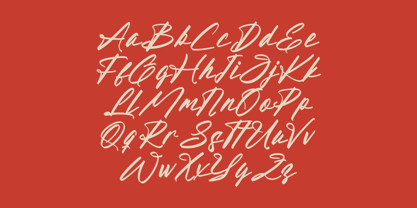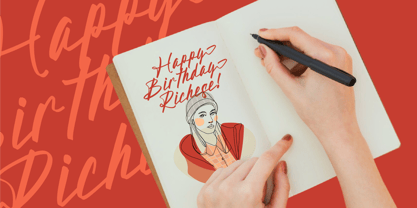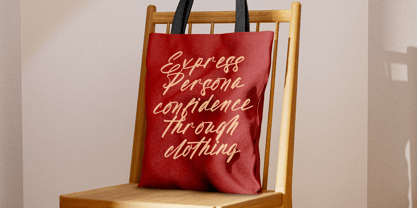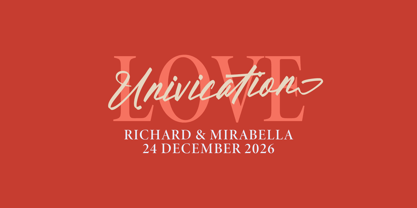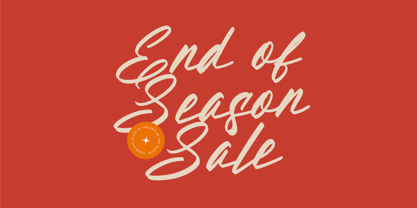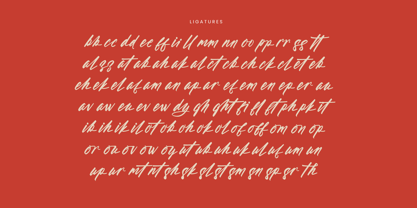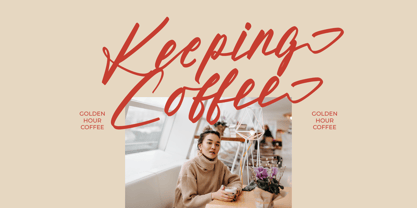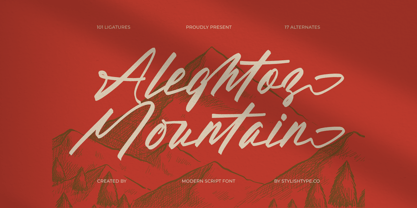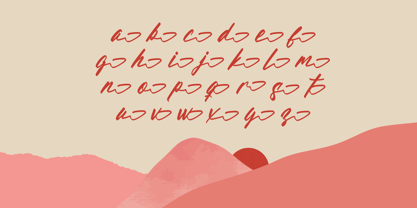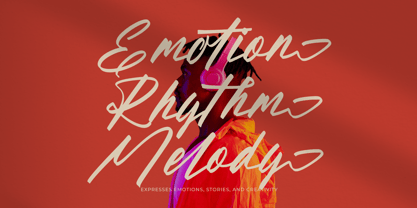
Aleghtoz Mountain
The Aleghtoz Mountain Font Family was designed by Heru Utama Putra and published by Stylishtype Studio. Aleghtoz Mountain contains 2 styles and family package options.
Aleghtoz Mountain - Modern Script Font , from Stylishtype , Suitable for any projects such as: logos, branding projects, homeware designs, product packaging, mugs, quotes, posters, shopping bags, t-shirts, book covers, name card, invitation cards, greeting cards, label, photography, watermark, special events, and all your other luxury and beautiful projects that need a Luxury Script taste.